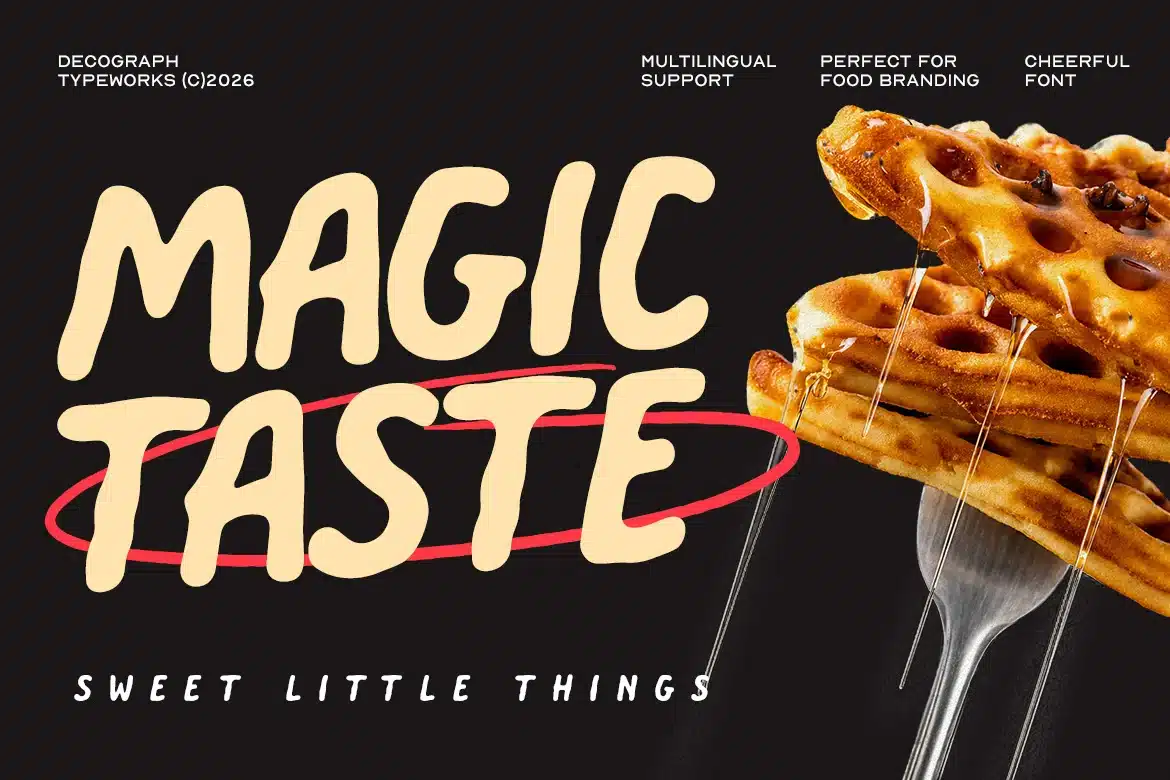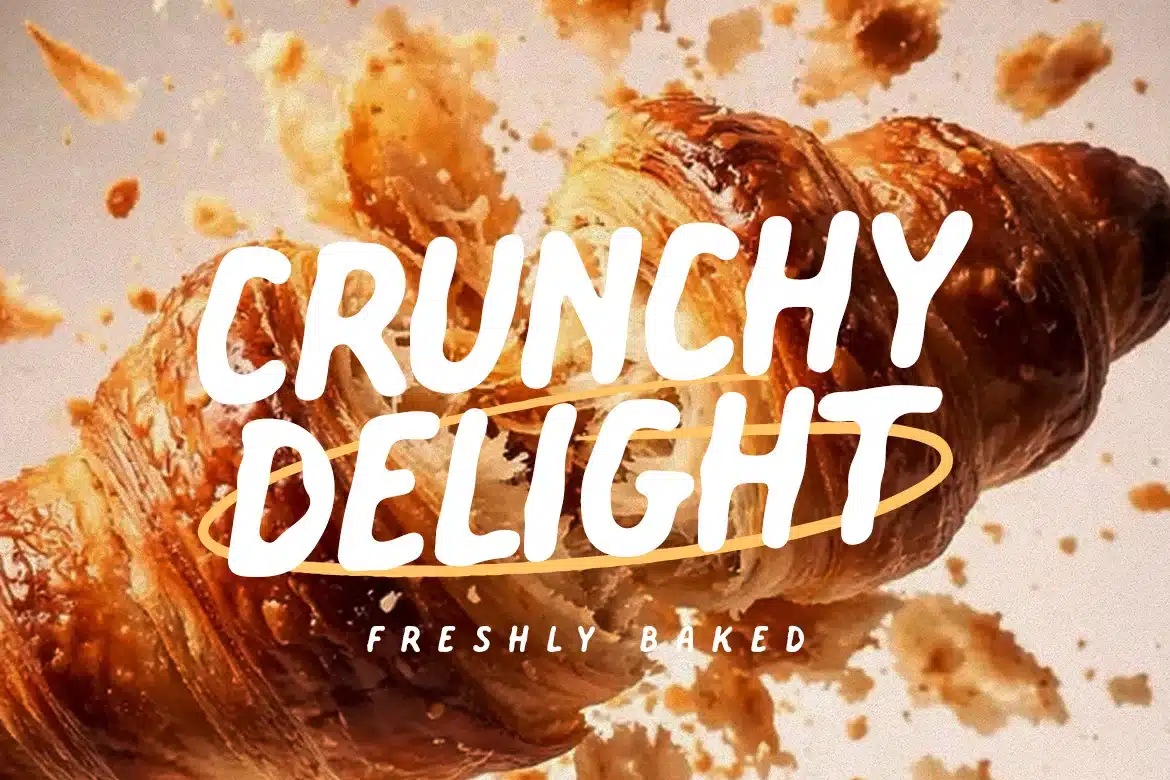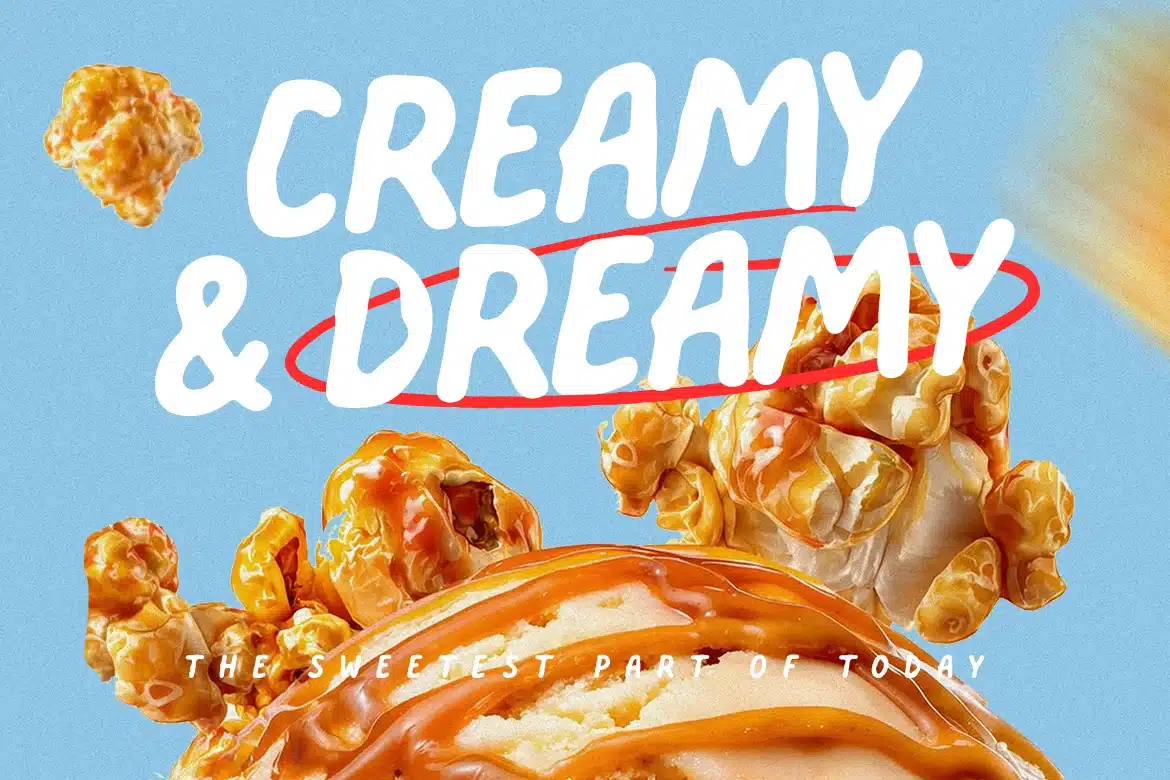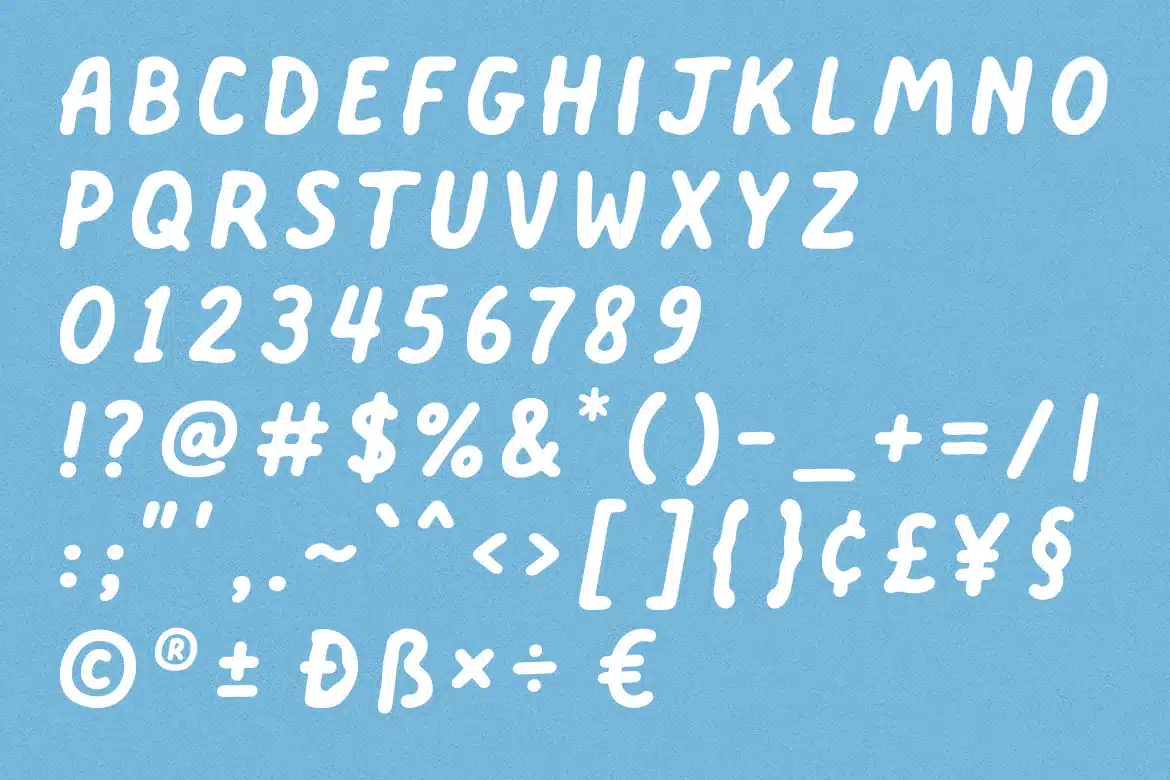
Cremelo Savory – Food Font
Cremelo Savory is a playful handcrafted bold sans font with chunky rounded strokes, organic rhythm, and a cheerful handmade personality. Its soft imperfect shapes create a warm and friendly appearance that feels delicious, approachable, and highly expressive for standout display typography.